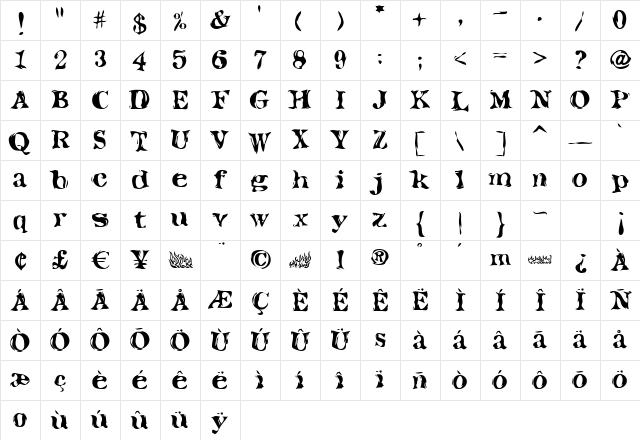
Toxic Medium
Design Context for Toxic
Toxic is a composed and adaptable typeface that performs quietly and consistently across a wide range of design contexts.
Pro Tip: Use Toxic in both headline and body roles to test its range before committing to a single application.